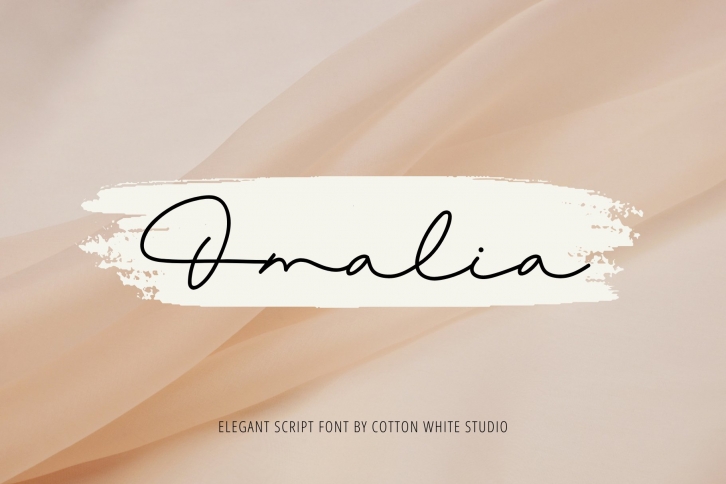
Omalia Monoline Script is a beautiful font that was designed by CottonWhiteStudio. It's a great choice for designers and creatives who need such a font. It was released on September 26, 2022 and the file size is 13.3 MB. Omalia Monoline Script may give a more youthful, expressive and casual look to your project. It is a very beautiful, refined, elegant, and high-quality font.